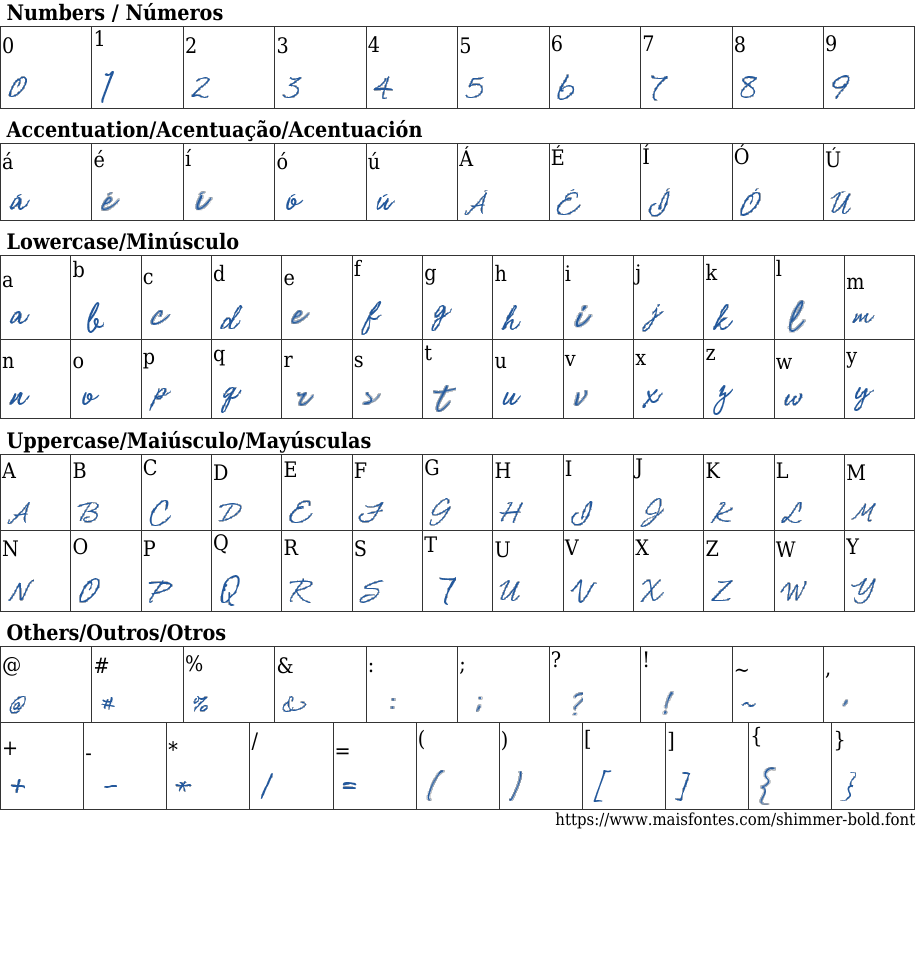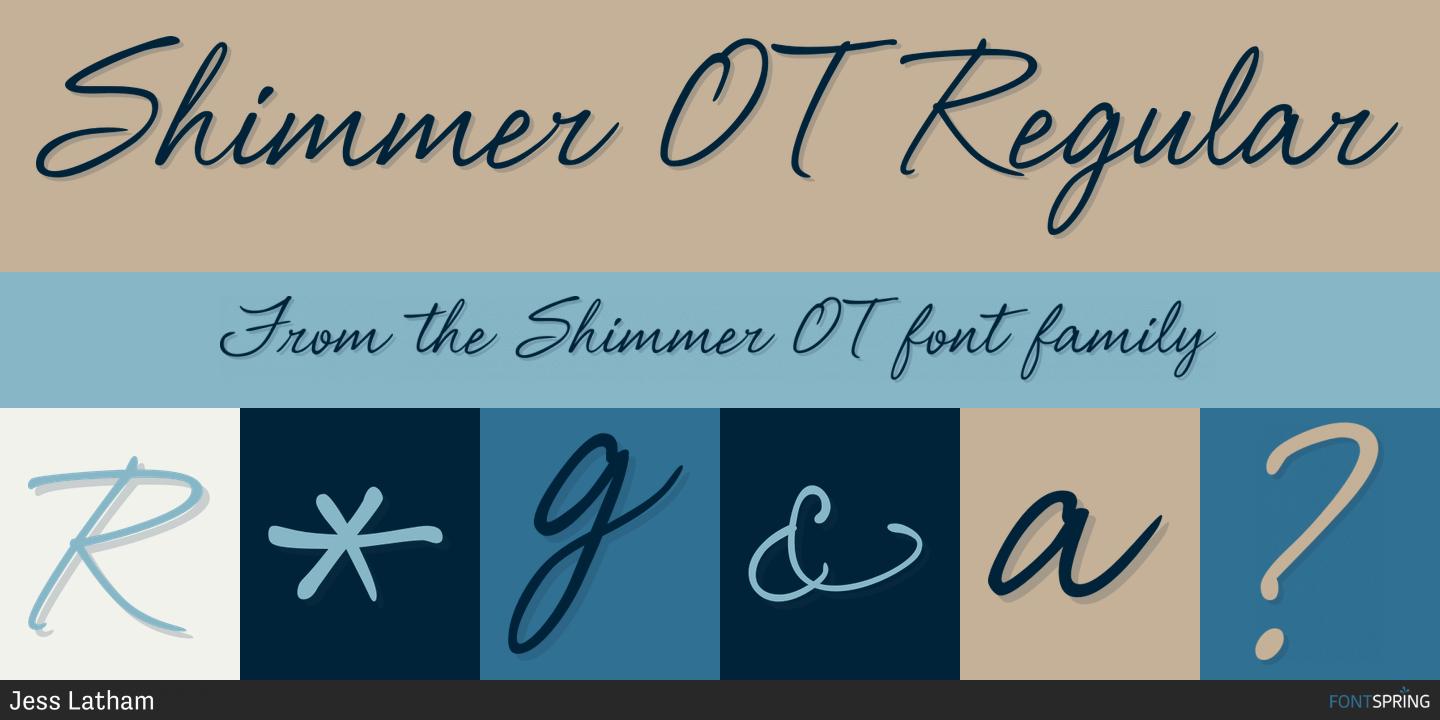
Shimmer Bold Font . Discover a world of captivating typography for your creative projects. Explore shimmer fonts at myfonts. To learn more about the font and typography of the shimmer bold font, simply enter the text in the field below and click generate. The letters were meticulously hand. Font family by jess latham. Download shimmer bold regular for free. Check out examples of the shimmer bold font at azfonts Unleash your design potential today! See how shimmer bold regular looks. Experience the shimmer bold regular font on windows, mac, and linux with our instant preview feature. Opentype font (.otf) enter the code to download shimmer bold Shimmer looks just like real cursive handwriting, because that's exactly what it is! Download for free shimmer bold. Download the shimmer bold font for mac or windows in opentype, truetype or postscript format. Includes 2 font styles from $28.
Unleash your design potential today! To learn more about the font and typography of the shimmer bold font, simply enter the text in the field below and click generate. See how shimmer bold regular looks. The letters were meticulously hand. Download the shimmer bold font for mac or windows in opentype, truetype or postscript format. Shimmer looks just like real cursive handwriting, because that's exactly what it is! Download shimmer bold regular for free. Experience the shimmer bold regular font on windows, mac, and linux with our instant preview feature. Font family by jess latham. Opentype font (.otf) enter the code to download shimmer bold
Shimmer Font Family by Jess Latham Font Bros Shimmer Bold Font The letters were meticulously hand. Check out examples of the shimmer bold font at azfonts Unleash your design potential today! Download shimmer bold regular for free. Discover a world of captivating typography for your creative projects. Explore shimmer fonts at myfonts. Font family by jess latham. To learn more about the font and typography of the shimmer bold font, simply. Shimmer Bold Font.
Shimmer Bold Party Dubstep Countdown Countdowns Download Youth Ministry Shimmer Bold Font Experience the shimmer bold regular font on windows, mac, and linux with our instant preview feature. Discover a world of captivating typography for your creative projects. See how shimmer bold regular looks. To learn more about the font and typography of the shimmer bold font, simply enter the text in the field below and click generate. Download shimmer bold regular. Shimmer Bold Font.
Shimmer Font (Script Fonts) by Prismpalette Apr, 2024 Medium Shimmer Bold Font Explore shimmer fonts at myfonts. Unleash your design potential today! Experience the shimmer bold regular font on windows, mac, and linux with our instant preview feature. Discover a world of captivating typography for your creative projects. To learn more about the font and typography of the shimmer bold font, simply enter the text in the field below and click generate.. Shimmer Bold Font.
Shimmer Bold Free Font Download MaisFontes Shimmer Bold Font To learn more about the font and typography of the shimmer bold font, simply enter the text in the field below and click generate. Download the shimmer bold font for mac or windows in opentype, truetype or postscript format. See how shimmer bold regular looks. Check out examples of the shimmer bold font at azfonts Font family by jess latham.. Shimmer Bold Font.